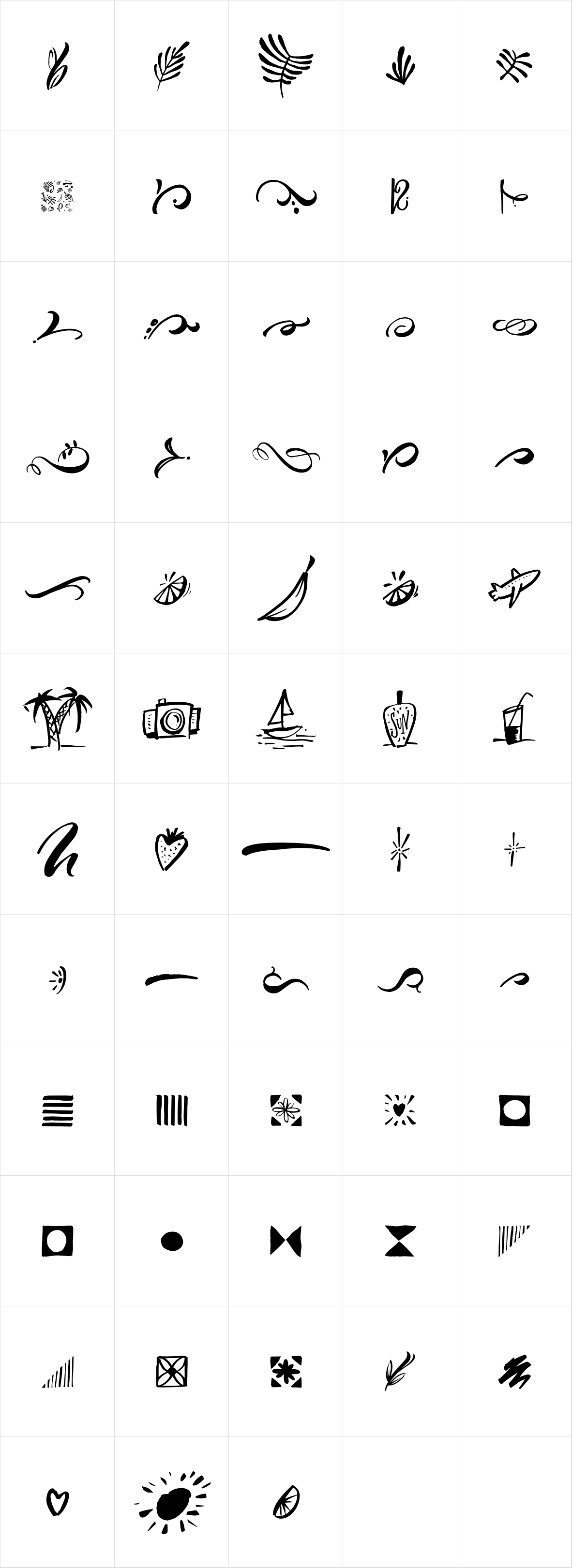
Beach Please Icons Font
- Beach Please - Is a suite of handwritten fonts designed with pointed brush and watercolors. Beach Please Script is a relaxed and tender brush font, inspired by sign painting. The aim was to give a fun and fresh twist, exaggerating some curves and punctuation signs. There are also many alternates and swashes included accessible through opentype. Beach Please Caps & Wide have a bizarre look because of the reversed contrast on some letters, this particularity gives to the font a total new expression perfect for catchy headlines. Beach Please Wide works better when you need to use it in smaller sizes. It is full of ligatures to give to your text a realistic handwritten feeling. We also present in this font family a slanted version for each font. To complete the Suite a set of tropical and fruity icons is also available. These sketchy vintage illustrations are perfect to create beautiful letterings and graphic layouts.